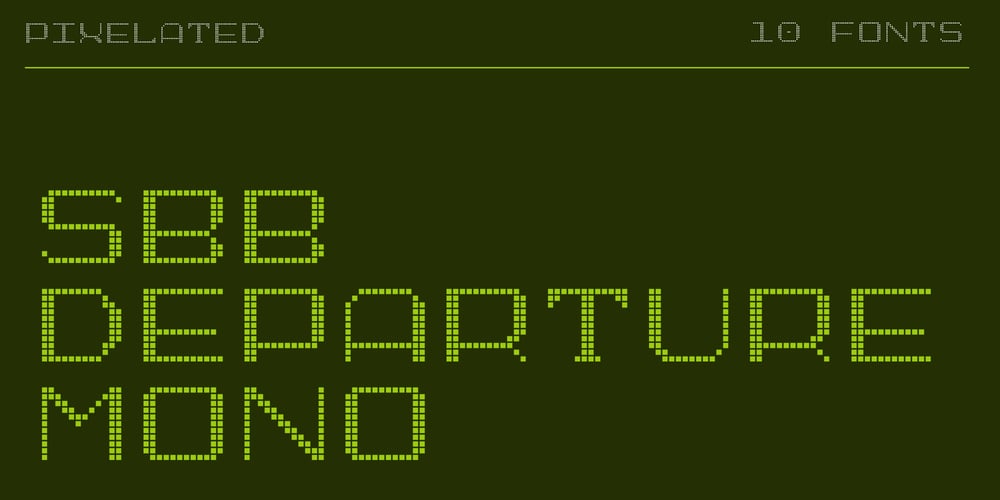
SbB Departure Mono Font Family was designed by Bob Wertz and published by Sketchbook B. SbB Departure Mono contains 11 styles and family package options. Monospaced. Pixel-inspired. Vaguely art deco. SbB Departure Mono is a 10-font family including five weights and italics, channeling some futuristic arrival/departure board in some sci-fi future. The widths of all of the letters remain the same in all five weights, the only thing that changes is the size of the pixel brick, simulating everything from Extra Light weight all the way through bold. SbB Departure Mono is appropriate for visual branding or display type in editorial projects. In addition, a variable font allows for customization of weight and slant.–Uppercase